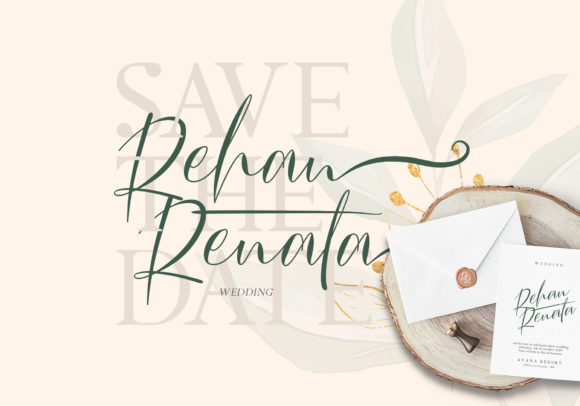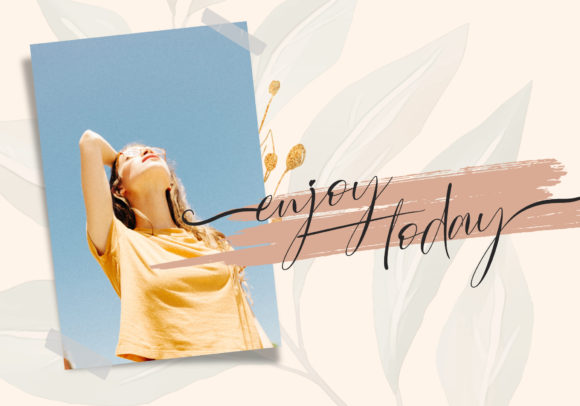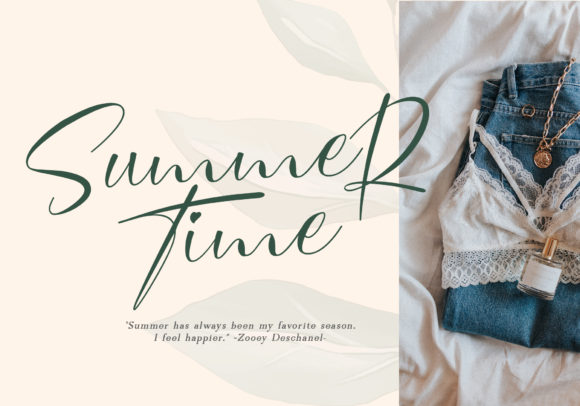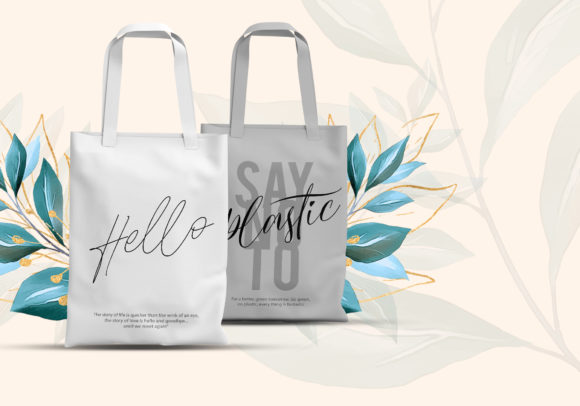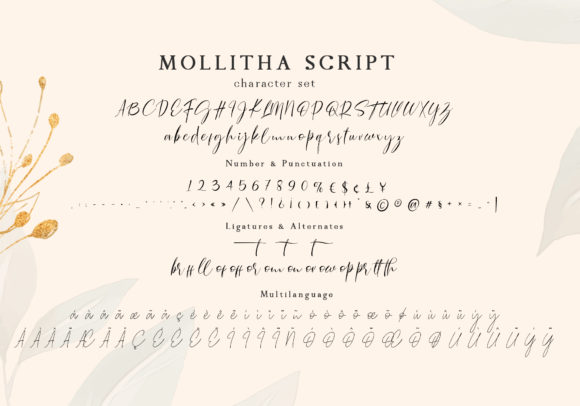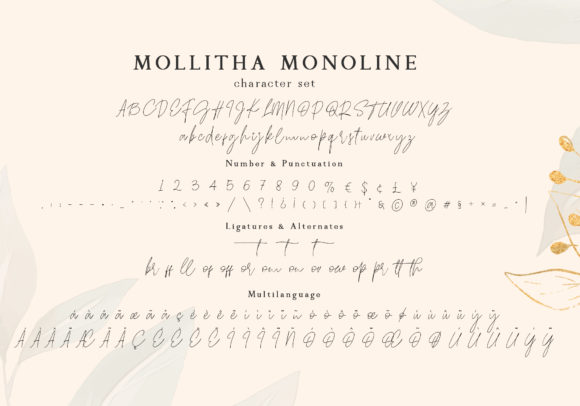
Introduction to Mollitha Font
Imagine the thrill of bringing a creative project to life, with every detail carefully crafted to perfection. As a designer, you’ve likely experienced that moment of satisfaction when all the elements come together in harmony. But what if you’re looking for a design resource that can elevate your work to the next level? Enter the Mollitha Font, a high-quality script font that embodies elegance and sophistication.
With its classy calligraphic influences and contemporary feel, the Mollitha Font is the perfect addition to any design project. Whether you’re working on a letterhead, title, or stationery, this versatile font is sure to impress. Its clean lines and refined aesthetic make it an excellent choice for designers who value simplicity and sophistication. Plus, with a transparent background, you can easily layer it over other design elements to create a unique look.
Key Features of Mollitha Font
- High-quality design resource ideal for creative projects, including graphic design, digital art, and publishing.
- Features a transparent background, making it easy to overlay on images or use as a standalone design element.
- Unique characteristics include its elegant and modern aesthetic, making it a versatile choice for a wide range of design projects.
Honest Review: Mollitha Font
I recently had the chance to work with the Mollitha Font, and I must say it’s a high quality design resource that can elevate your creative project to the next level.
What works well is the Mollitha Font’s versatility. It comes in a variety of styles and weights, making it suitable for a range of design applications. The transparent background option also provides a clean and modern look that’s perfect for graphic design projects.
- ✨ Easy to customize and manipulate in design software
- ✨ High-quality graphics and detailed typography
However, there are a few limitations to consider. The font library could be more extensive, and some users may find the file size a bit large.
- ⚠️ Limited font library options
Tips for Getting the Most Out of Mollitha Font
To get the most out of the Mollitha Font, experiment with different font sizes, colors, and styles to create visually appealing designs. You can also combine it with other design elements to add depth and interest.
The Mollitha Font is ideal for creative projects such as logos, branding materials, social media graphics, and presentations. Its high-quality design makes it perfect for professional and personal projects alike.